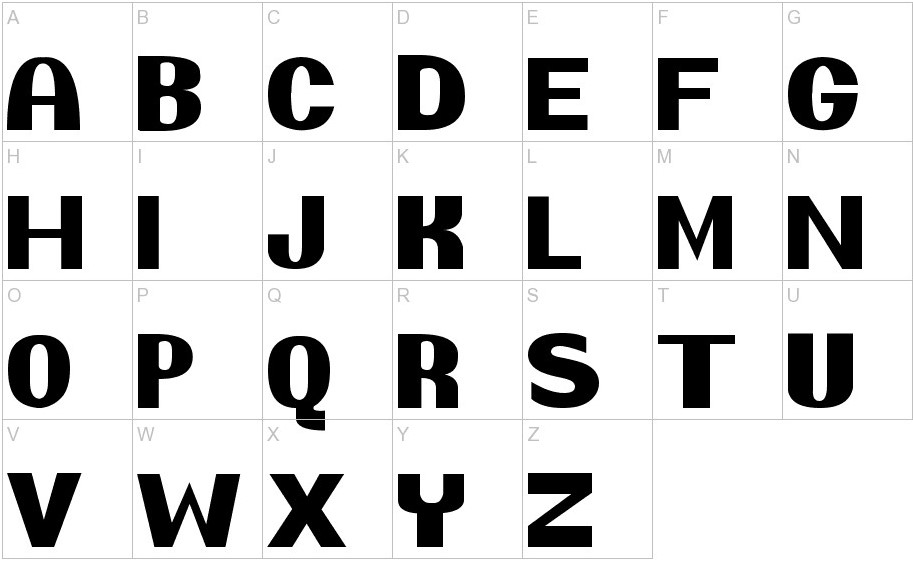
Today we are presenting the new sans-serif typeface that is known as the Pretendo Font. This typeface was designed and developed by Erwin Denissen and it was released by High Logic Fonts.
When you use this font you will found out that these typeface characters are created using ink and this typeface can be paired with the againts font and also amazing strokes are present in this typeface.
This typeface contains a unique texture and this typeface also has vast language support. The amazing clarity this typeface provides in the design make this typeface different from others.
The sharpness of the characters in this typeface can easily be used with the combination of orkney font. These are the factors that make any kind of design pro-level.
Before moving ahead, let’s have a look on the appearance of this font that how does it will appear when you apply it in your graphic design.
Due to its clean texture, you may easily use this outstanding font for the ambitious heading, ebook covers, brand designs, cloth printing, official cards, precise emblems, and so on.
Style | Sans-Serif |
Designer | Erwin Denissen |
What Type of Font Is Pretendo?
This is a sans-serif typeface that is designed and developed by Erwin Denissen and it was released by High Logic Fonts.
What’s the Closest Font to Pretendo?
The Quirkus font is very close to the Pretendo font.